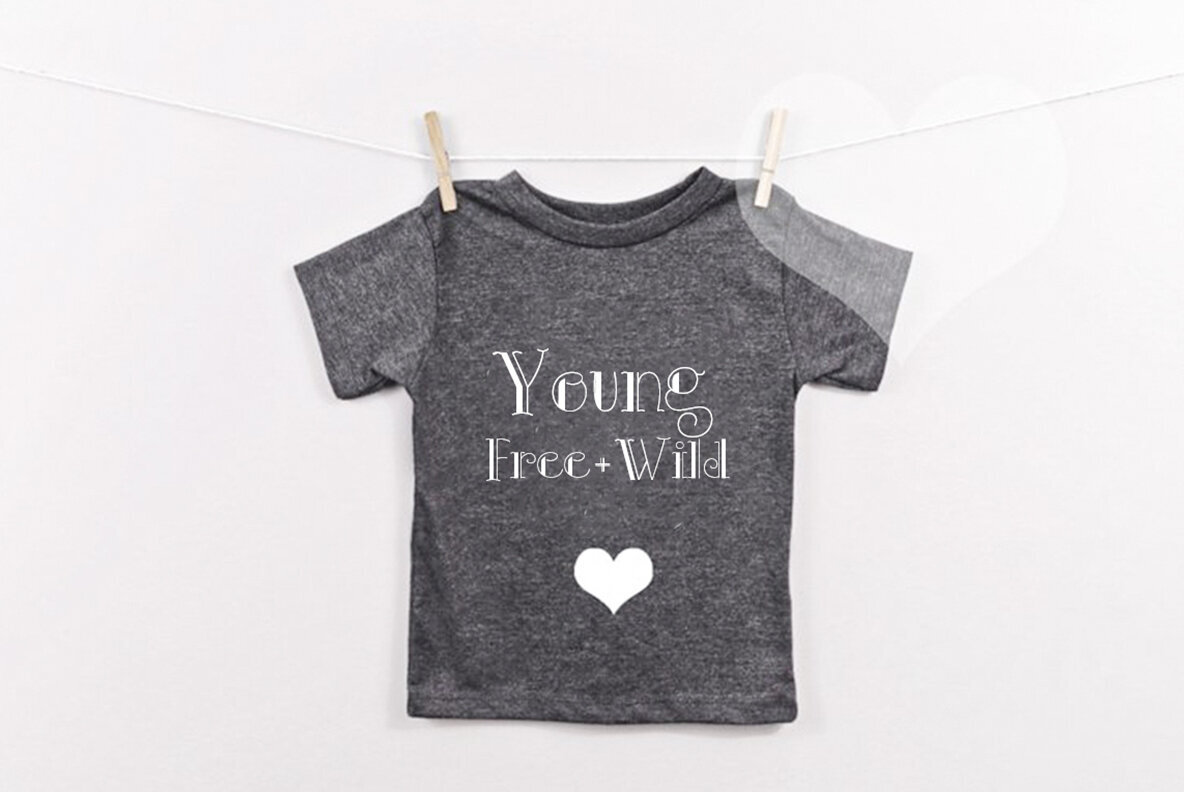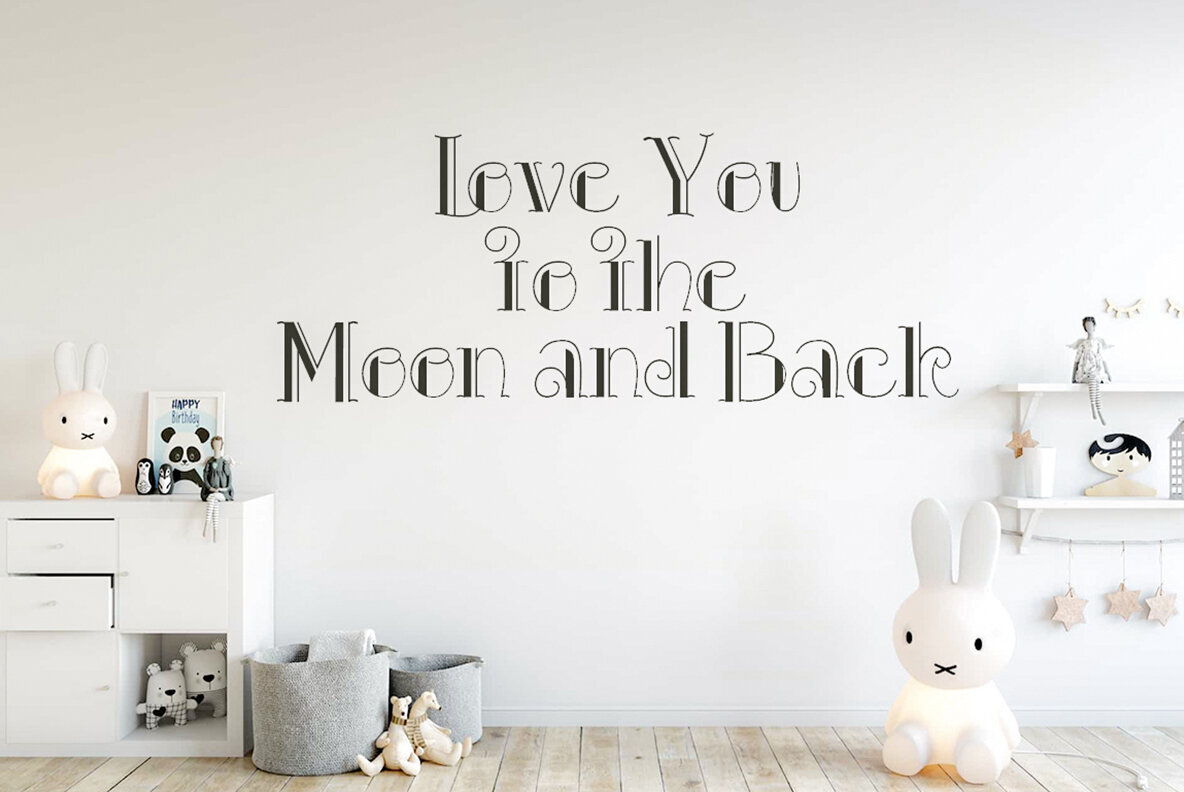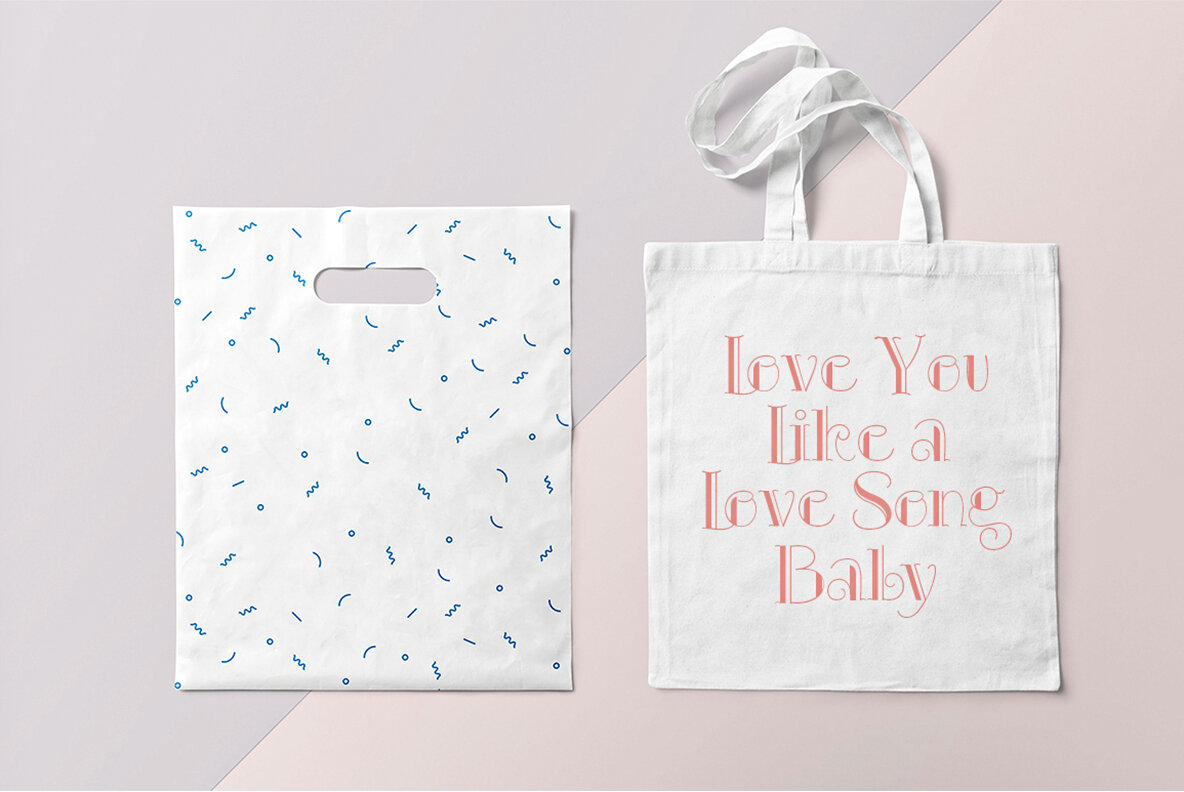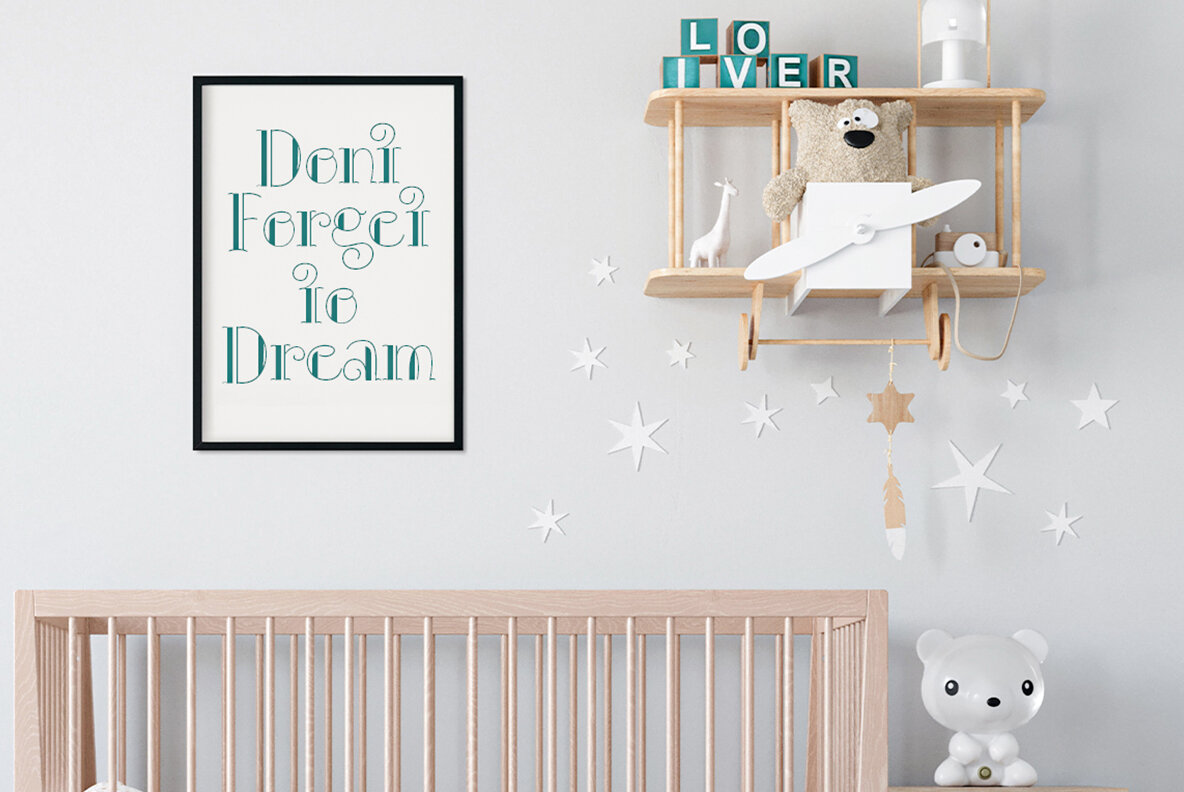
Mini Honysa: A Modern Typeface for Versatile Applications
Mini Honysa offers a sleek and contemporary style, ideal for a wide range of creative projects. Whether you're working on branding, invitations, stationery, or wedding designs, this font provides the perfect combination of elegance and functionality. It's also suitable for social media posts, advertisements, product packaging, and more.
• Modern Look – Elevates branding and design elements across various platforms.